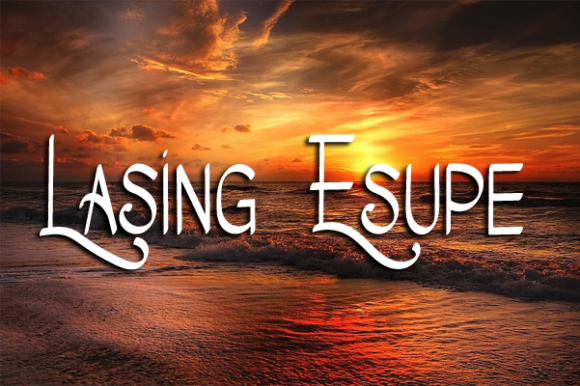
Embark on a typographic journey with Lasing Esupe, a sophisticated and captivating handwritten font that will ignite your creativity. Its elegant strokes and dynamic flow add a touch of charm to any design project, making it the perfect choice for creating logos, branding, invitations, and more.
Visualize your sports team's logo adorned with the bold and energetic lines of Lasing Esupe, leaving a lasting impression on fans. Envision the excitement as spectators see your team's unique identity come to life on jerseys, banners, and social media posts.
Step into the world of fashion and use Lasing Esupe to design eye-catching clothing labels and tags that exude a sense of exclusivity. Let your brand stand out with custom packaging adorned with Lasing Esupe's graceful curves, making each unboxing experience truly unforgettable.
Unleash your creativity and craft stunning invitations for special occasions, adding a touch of elegance to every event. Lasing Esupe's delicate strokes will transform ordinary invitations into timeless keepsakes that guests will cherish long after the celebration.
With Lasing Esupe, the possibilities are endless. Dive into the world of digital art and create captivating logos that demand attention on websites and social media platforms. Design business cards that leave a lasting impression, ensuring your professional network remembers your name.
Lasing Esupe is the font that brings your creative visions to life. Its versatility knows no bounds, making it a must-have for any designer or creative professional. Don't miss out on this opportunity to elevate your designs and leave an indelible mark on the world.